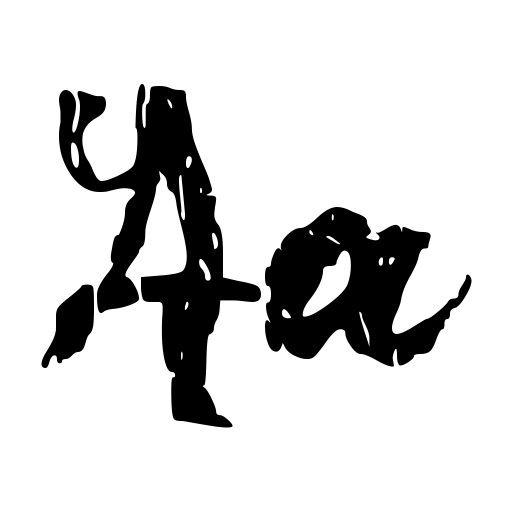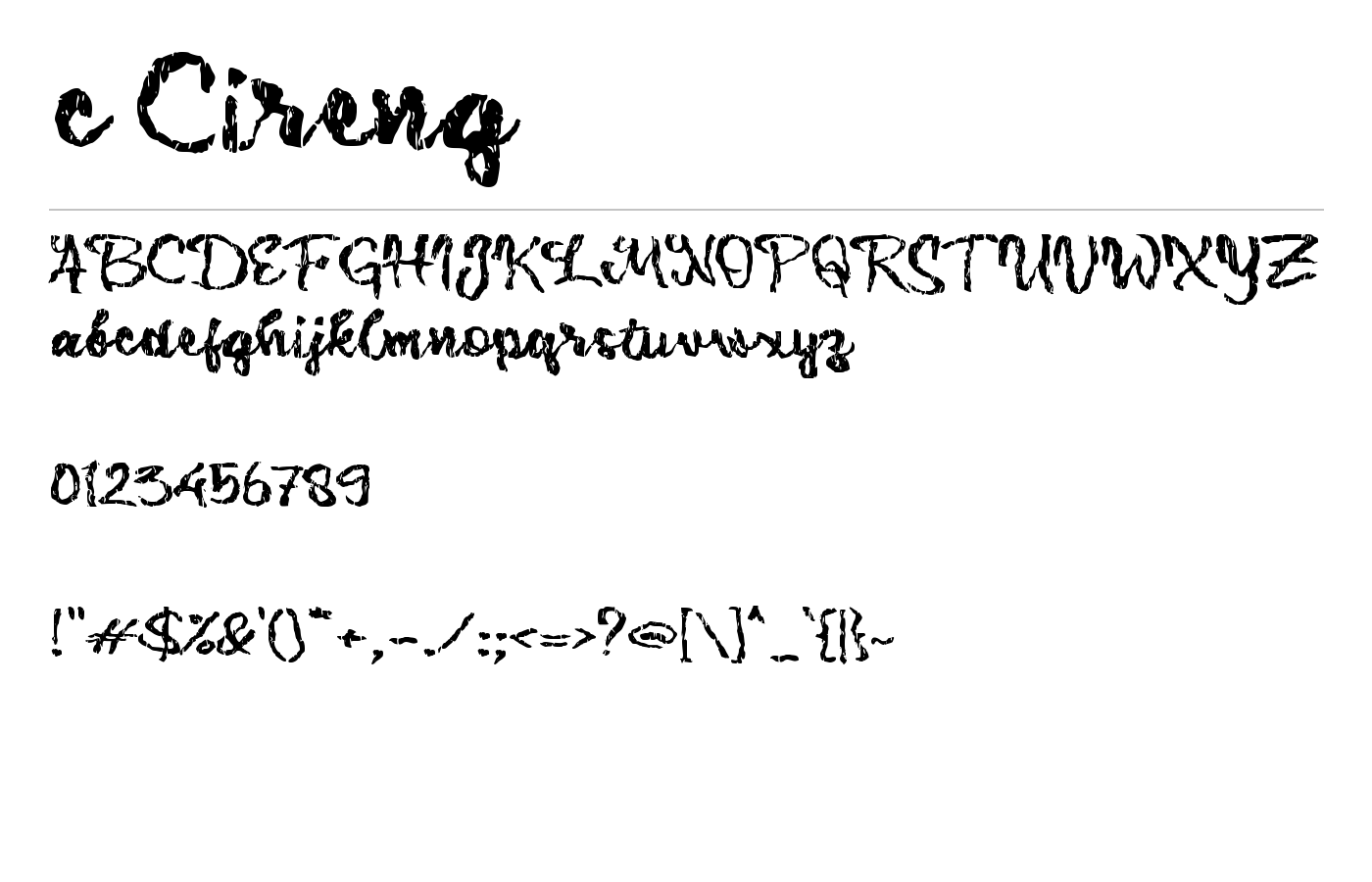
The c Cireng font is a textured, handwritten-style typeface with a casual and artistic feel, characterized by rough edges and irregular strokes that resemble brush or marker ink. Its lively, slightly condensed letterforms and medium x-height make it perfect for creative projects, adding a handcrafted and organic touch. This font works well for artistic branding, posters, and any design that benefits from an informal, expressive look.
c Cireng Font
About c Cireng Font